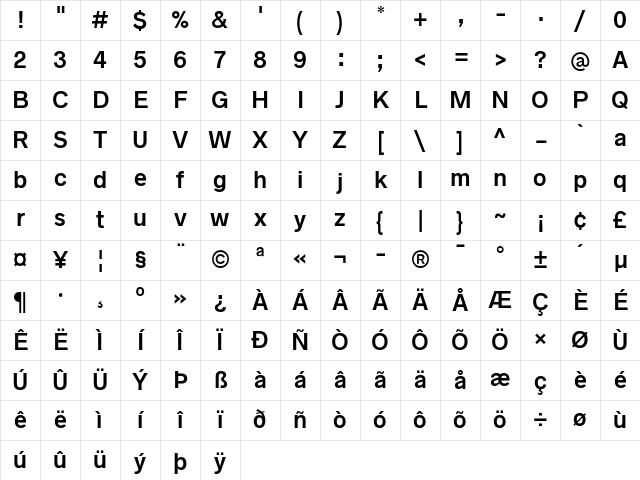
Radnika Next SemiBold Alt Free Font
Radnika Next SemiBold Alt
Style: SemiBold Alt
Foundry: Alfredo Marco Pradil
Designer: Alfredo Marco Pradil
Design Context for Radnika Next
Radnika Next is a composed and adaptable typeface that performs quietly and consistently across a wide range of design contexts. Its bold stroke weight gives it real presence on the page.